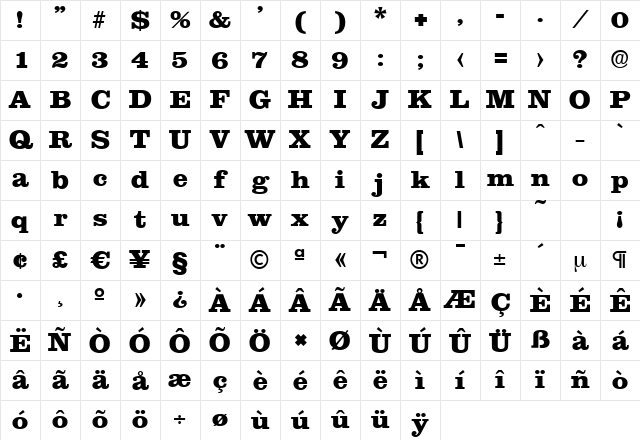
ClareSerial-Heavy Bold
ClareSerial-Heavy Family
Design Context for ClareSerial-Heavy
ClareSerial-Heavy is a composed and adaptable typeface that performs quietly and consistently across a wide range of design contexts. Its bold stroke weight gives it real presence on the page.